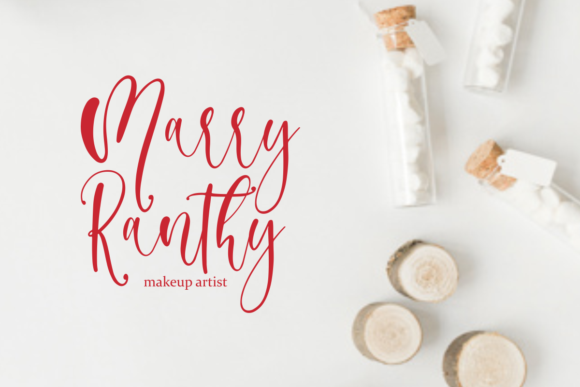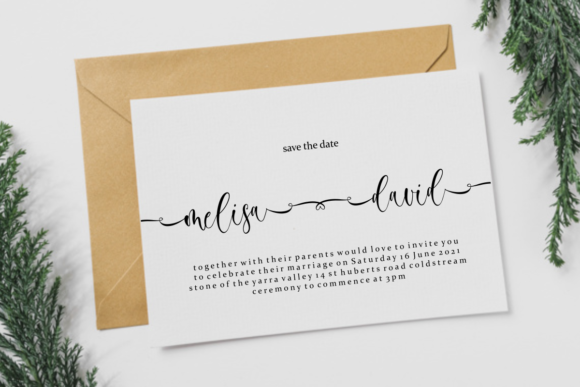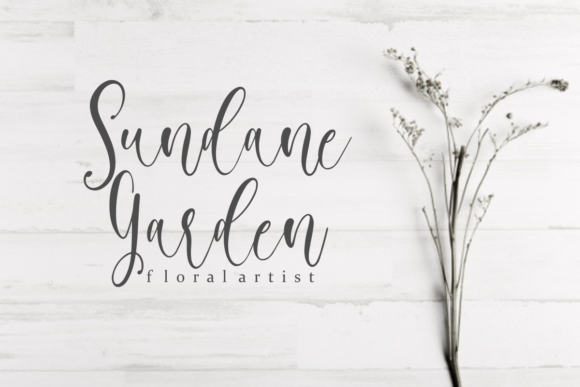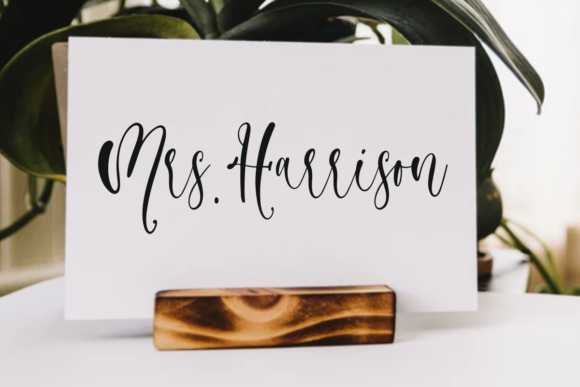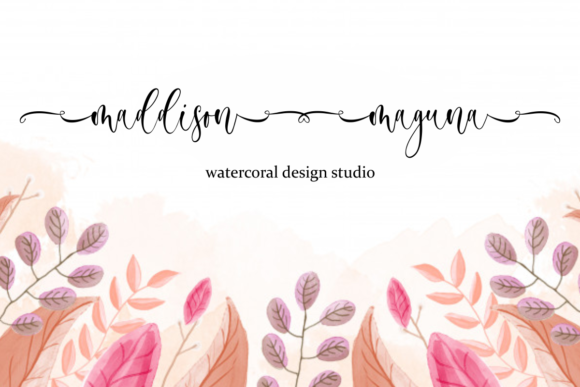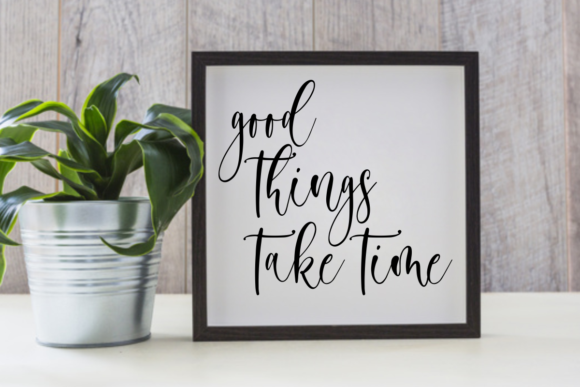
Introduction to Lovely Mother Font
Lovely Mother is an elegant handwritten font.
This font is made in a modern style with a very beautiful beginning and ending elegantly,very casual and suitable for your various design needs.